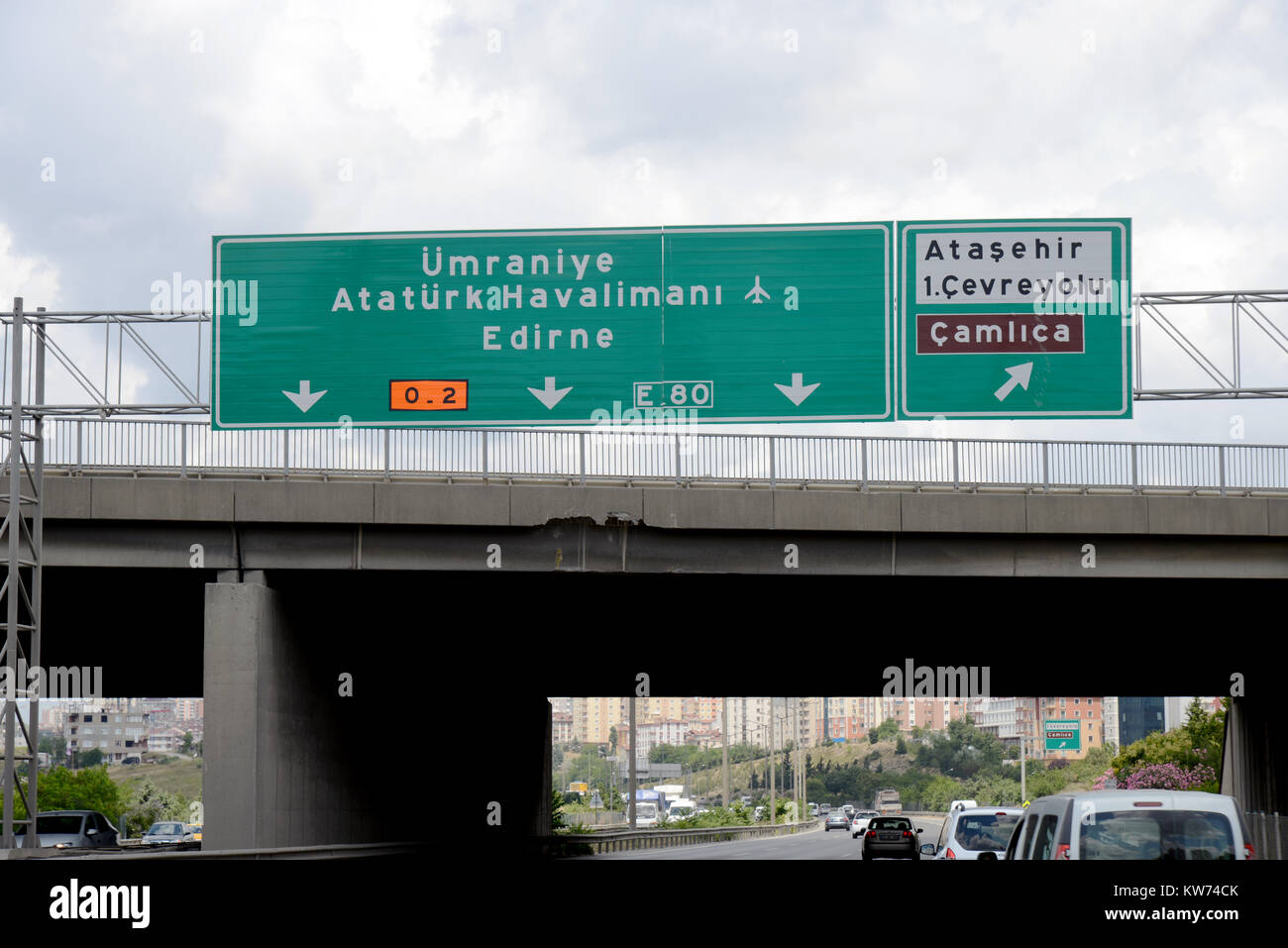
Been looking for the Turkish road sign font for a long time now. Many sites say that it is FHWA/Highway Gothic, however this is not true; it is based on this typeface. There are two variants - O-Serisi for motorways and E-Serisi for all other roads. So I'm wondering if anyone knows if such fonts exist?
I have e-serisi as TTF, but o-serisi don't. O- serisi is identical to Roadgeek 2005 Series EM TTF. E-serisi font is used in (blue ones) State Roads between cities whereas O-serisi (green ones) used in Highways. White ones only used in city areas governed by municipilaty font is same with blue ones. Brown is only used for historical places. Yellow signs point next foriegn city near borders for visitors leaving Turkey. All fonts are e-serisi except in highways (green)
I am seeing a few different styles of y between the top two photos and the bottom photo, so these may be similar styles, but not the exact same typeface.
It is most likely a custom / country-specific adaptation of FHWA/Highway Gothic, and not anything commercially available. Not finding a match in any database.
Similar for the largest (top) sample—Elliot Sans.
Yes, there's a difference between the 'y' because of the two different typefaces: O-Serisi, for motorways (green signs) and E-Serisi for regional roads (blue signs), city signs and others. Unfortunately, you've said just what I thought - it isn't available anywhere, hence this was my last resort. All I've managed to find is documentation on both fonts (and so the name of the typefaces) - https://www.kgm.gov.tr/SiteCollectionDocuments/KGMdocuments/Trafik/erismekontrollukarayollarindatrafikisaretlemestandartlari.pdf